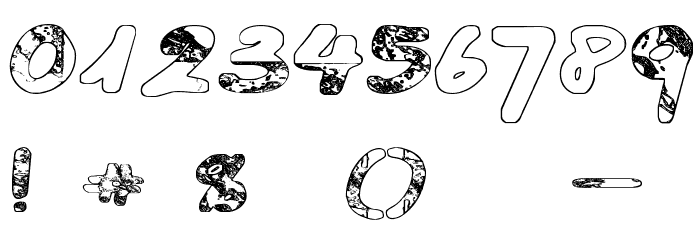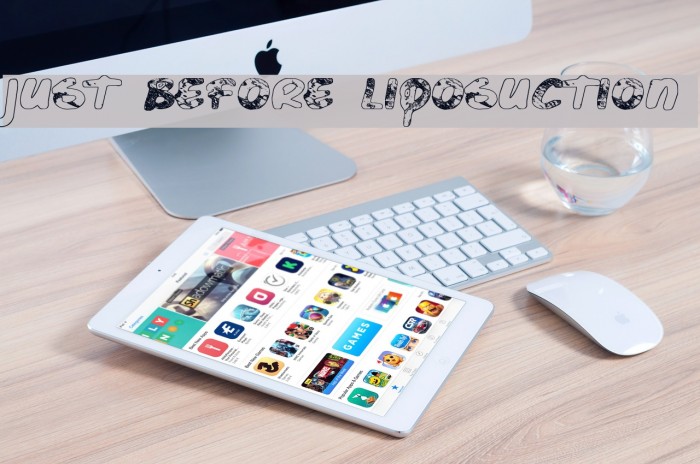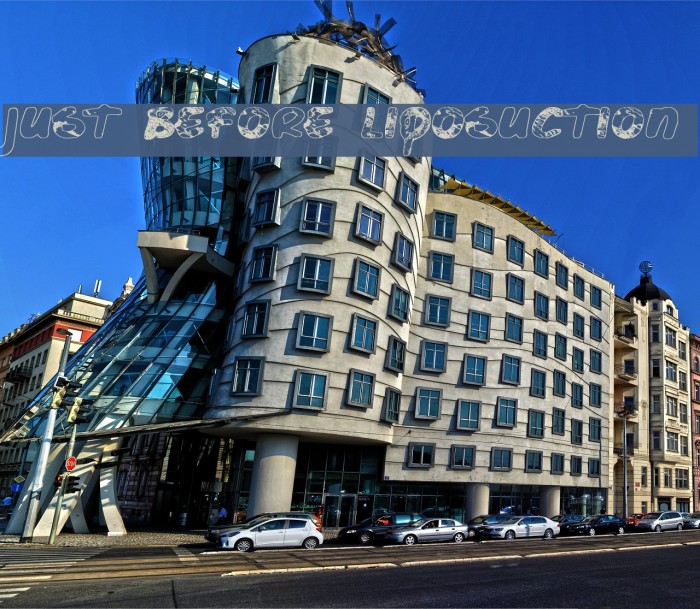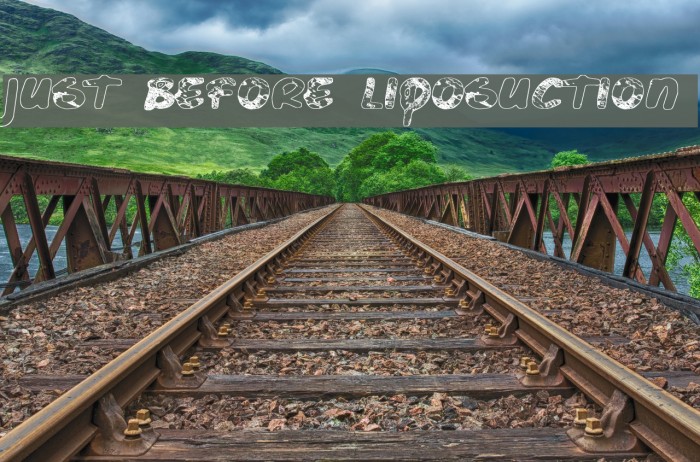
Just Before Liposuction Font
This font features a playful and bold design with a unique texture that resembles a mix of solid and hollow spaces, creating a dynamic visual effect. The characters are rounded and have a hand-drawn feel, with irregularities that add to their charm. The uppercase and lowercase letters maintain a consistent style, while the numbers and special characters follow suit with the same textured appearance. This font is eye-catching and ideal for creative projects that require a fun and informal touch.
A playful, textured font with a hand-drawn, bold style.
- Proposed Projects: Ideal for children's book covers, playful branding, posters, and creative social media graphics.